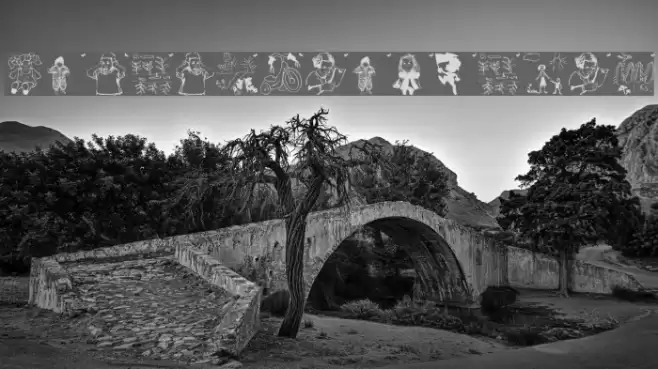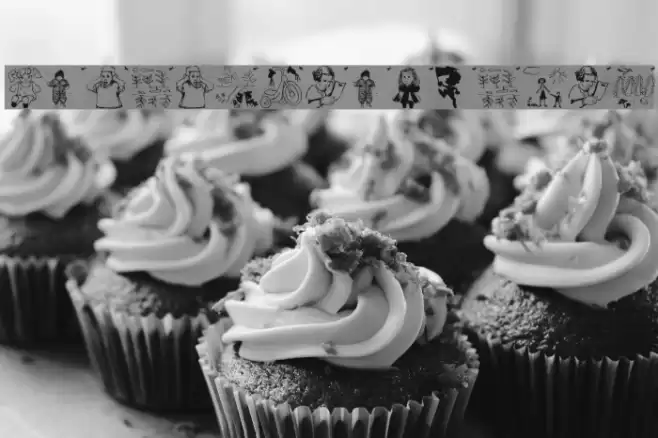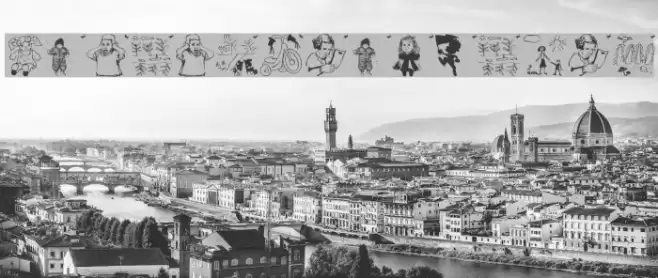
KidsDrawingsTwo Font
KidsDrawingsTwo Description
A playful, illustrative dingbat font featuring hand-drawn images of children, toys, and playful scenes. Each character is represented by a unique, whimsical drawing rather than a traditional letterform, evoking a sense of childhood creativity and innocence.
A dingbat font of hand-drawn children's drawings and playful scenes from Uncategorized fonts.
- Proposed Projects: Children's books, educational materials, party invitations, scrapbooking, classroom decorations, playful branding.
- Overall Style: Playful, Whimsical, Childlike
- Use Case: Decorative elements, icons, embellishments for children's content